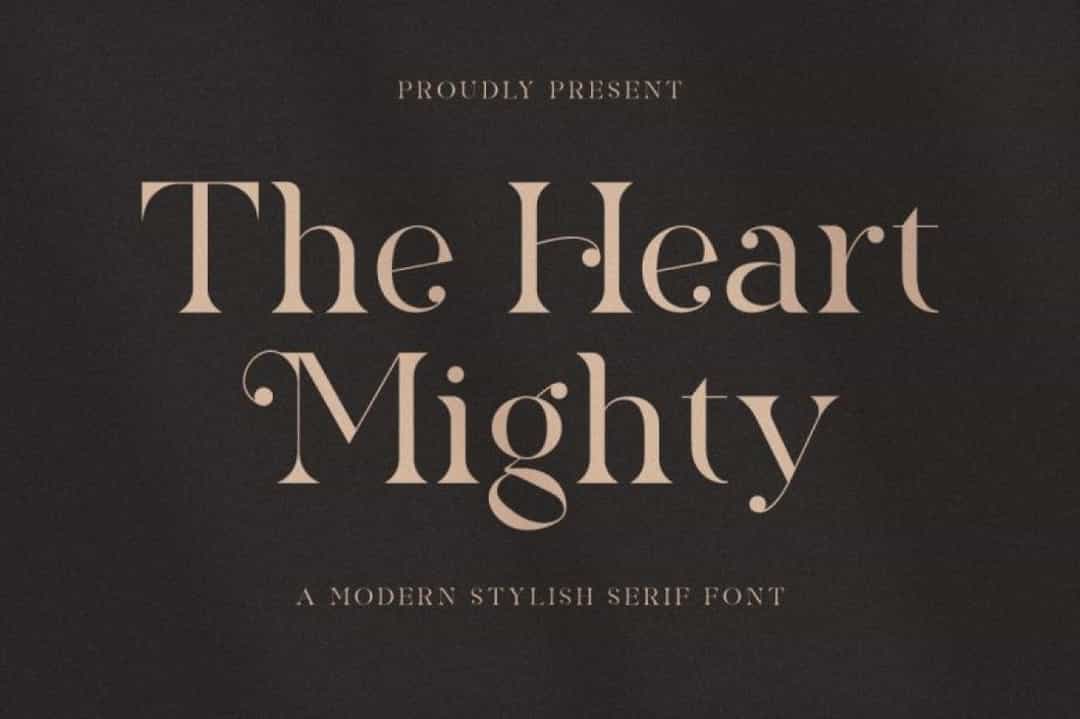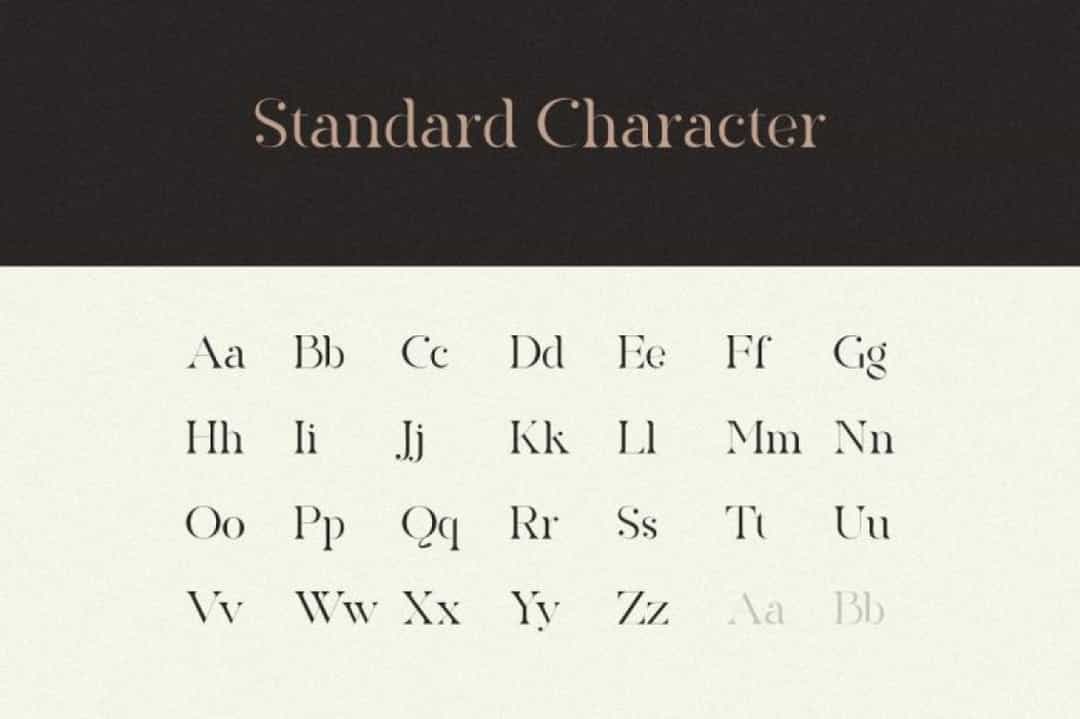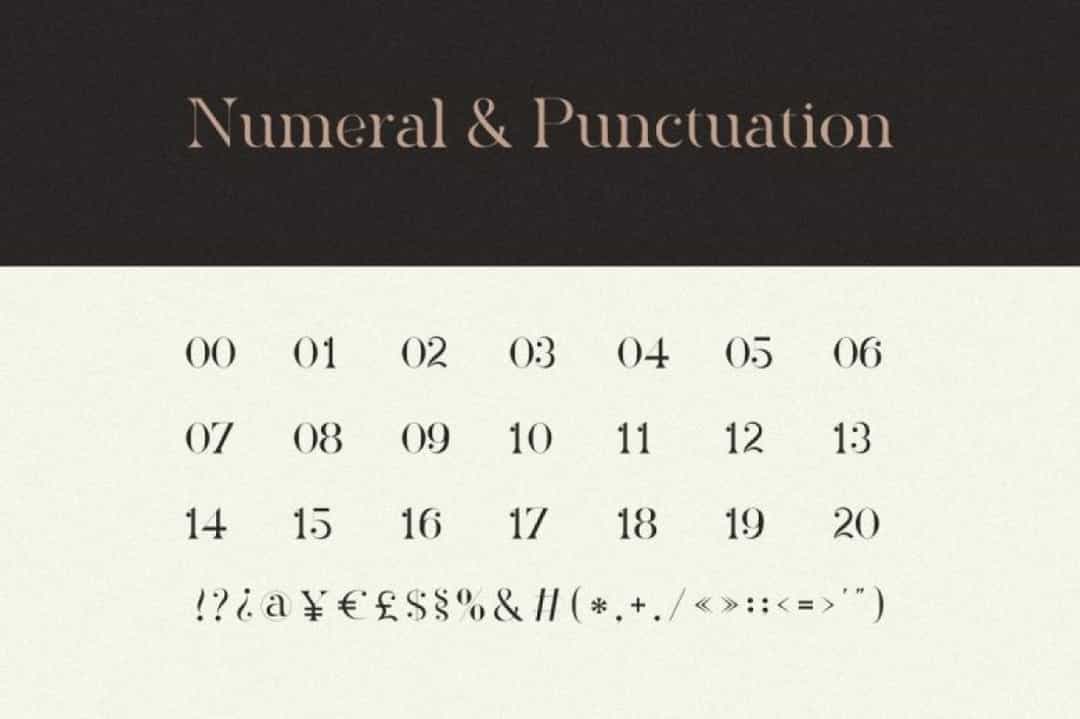
The Heart Mighty font is an exquisite and stunning serif font, created with modern serif font technology to produce fashion magazines and cooking websites, quotes, labelling, social media postings and other designs! When added into your projects you will be amazed by its resultant.